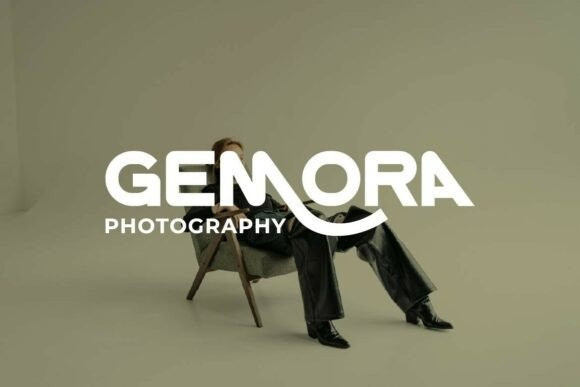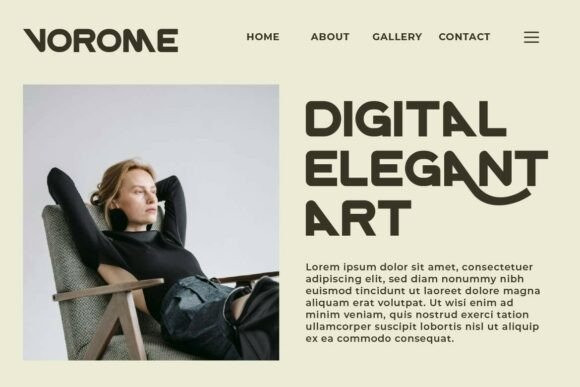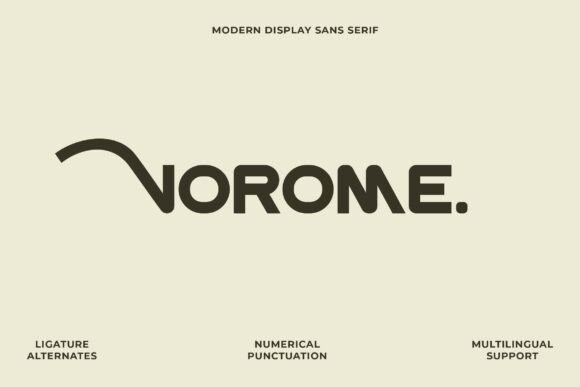
Vorome Font
Vorome Font is a strong and unique sans serif font with bold character and striking forms. Built for impactful branding, posters, headlines, and logos, it stands out with sharp angles and confident geometry. Complete with multilingual support, ligatures, and alternates, Vorome delivers a fearless presence in any modern design.
This fonts are great for product logo,wedding card logo, clothing brand logo, Vintage design and much more.